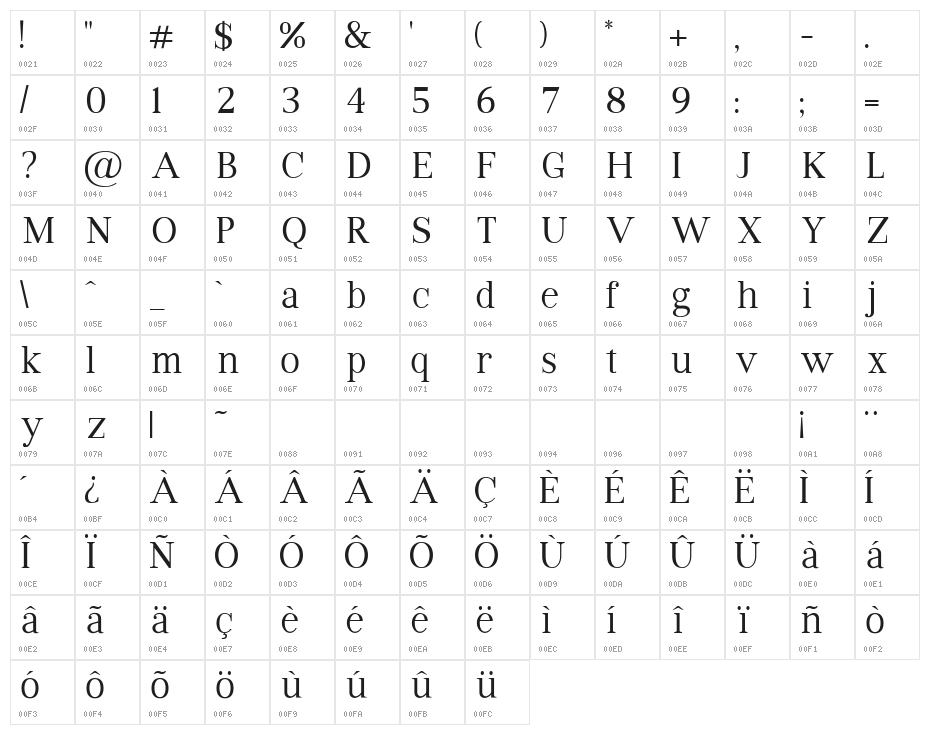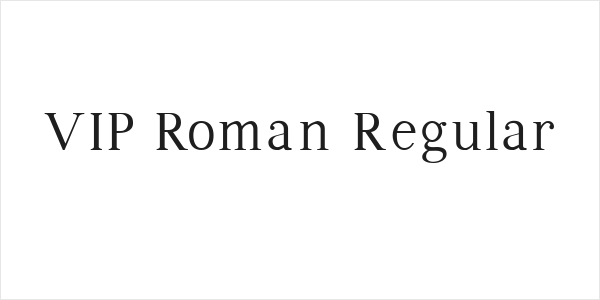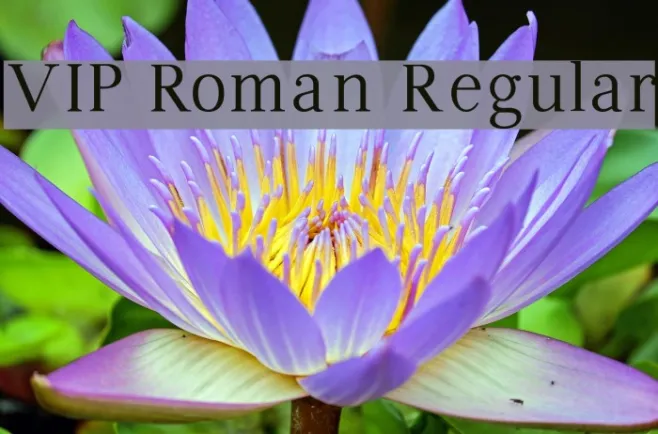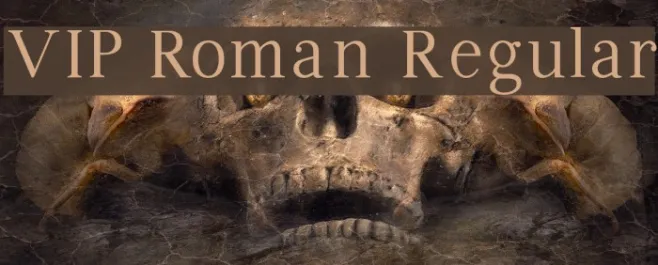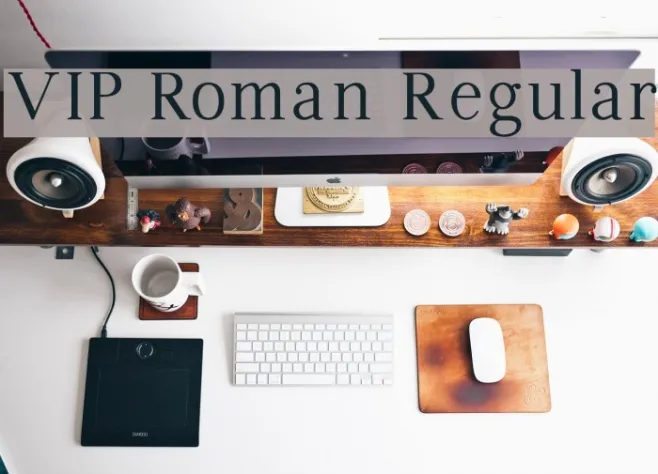
VIP Roman Regular Font
VIP Roman Regular Description
This typeface exudes a classic elegance with its refined serif design. The characters are well-proportioned, featuring a harmonious balance between thick and thin strokes, which adds a sophisticated touch. The uppercase letters stand tall with a dignified presence, while the lowercase letters maintain a graceful flow, making it versatile for various text applications. The numerals are clear and distinct, ensuring readability. Special characters are thoughtfully designed, complementing the overall aesthetic. This font is ideal for projects that require a touch of tradition and formality.
| Proposed Projects | Ideal for book publishing, formal invitations, branding for luxury products, and editorial design. |